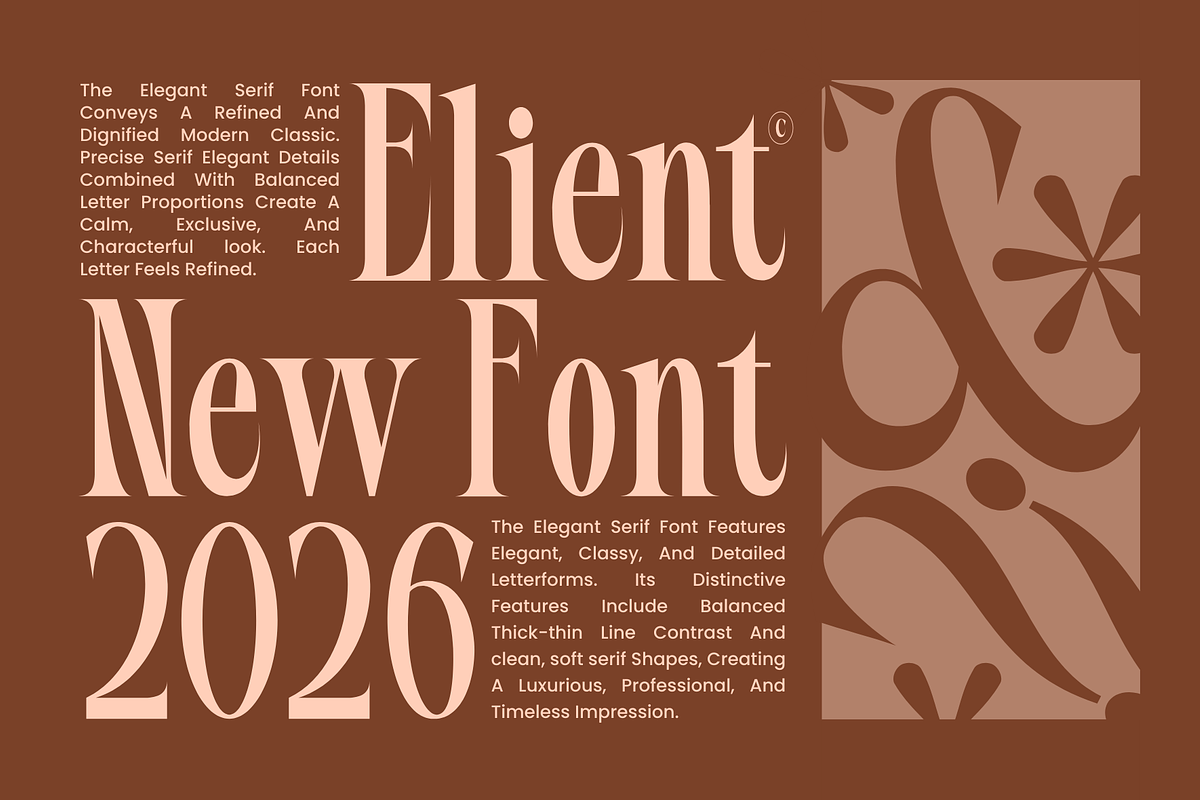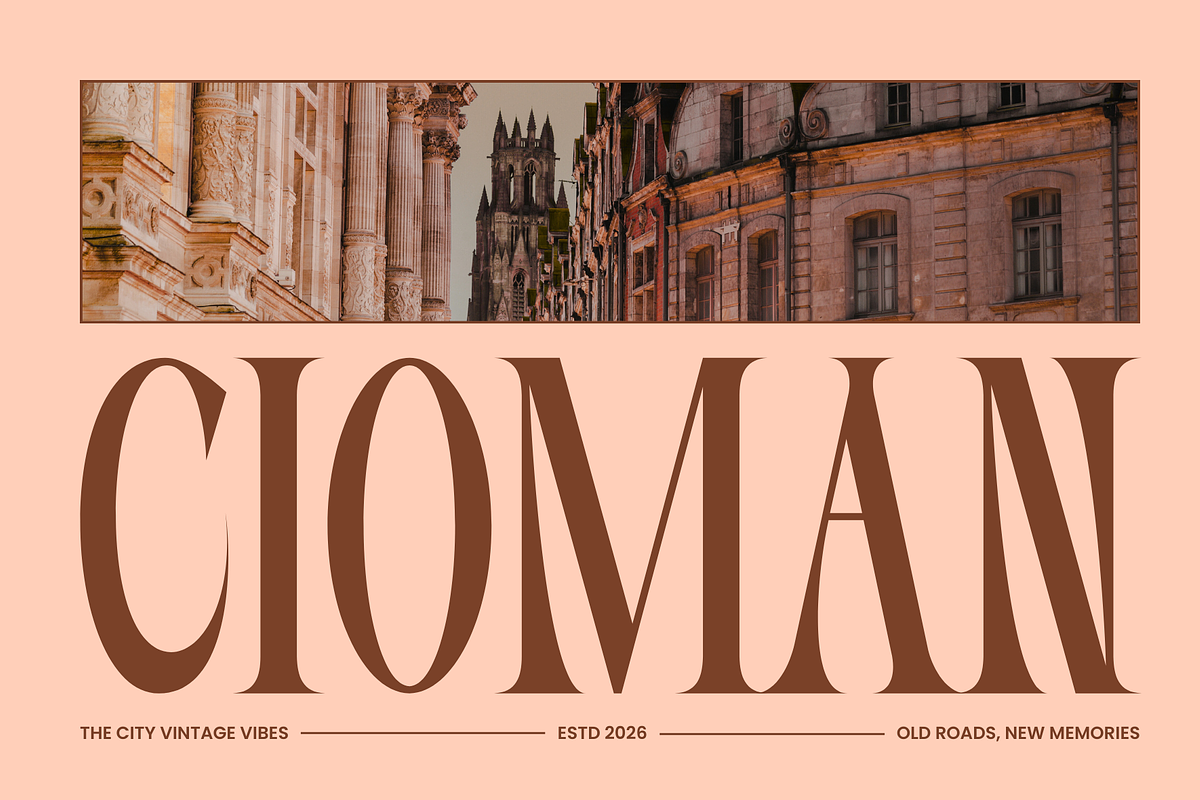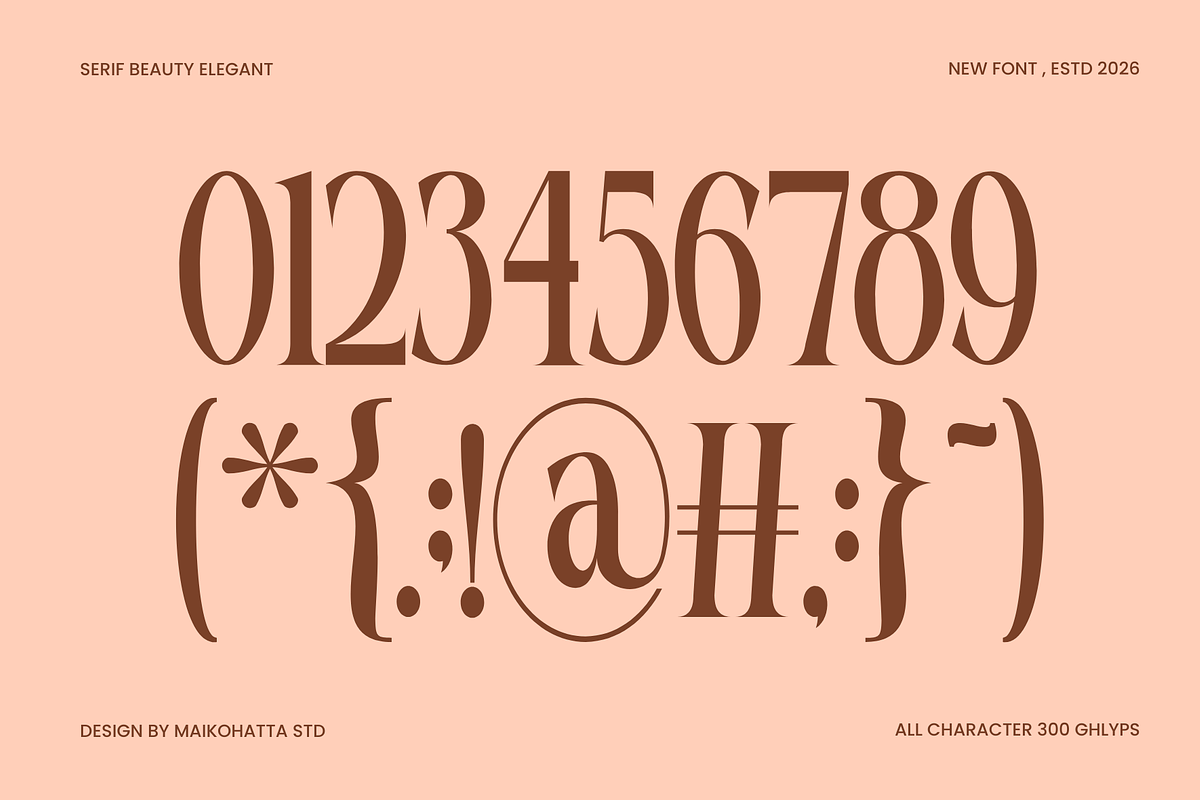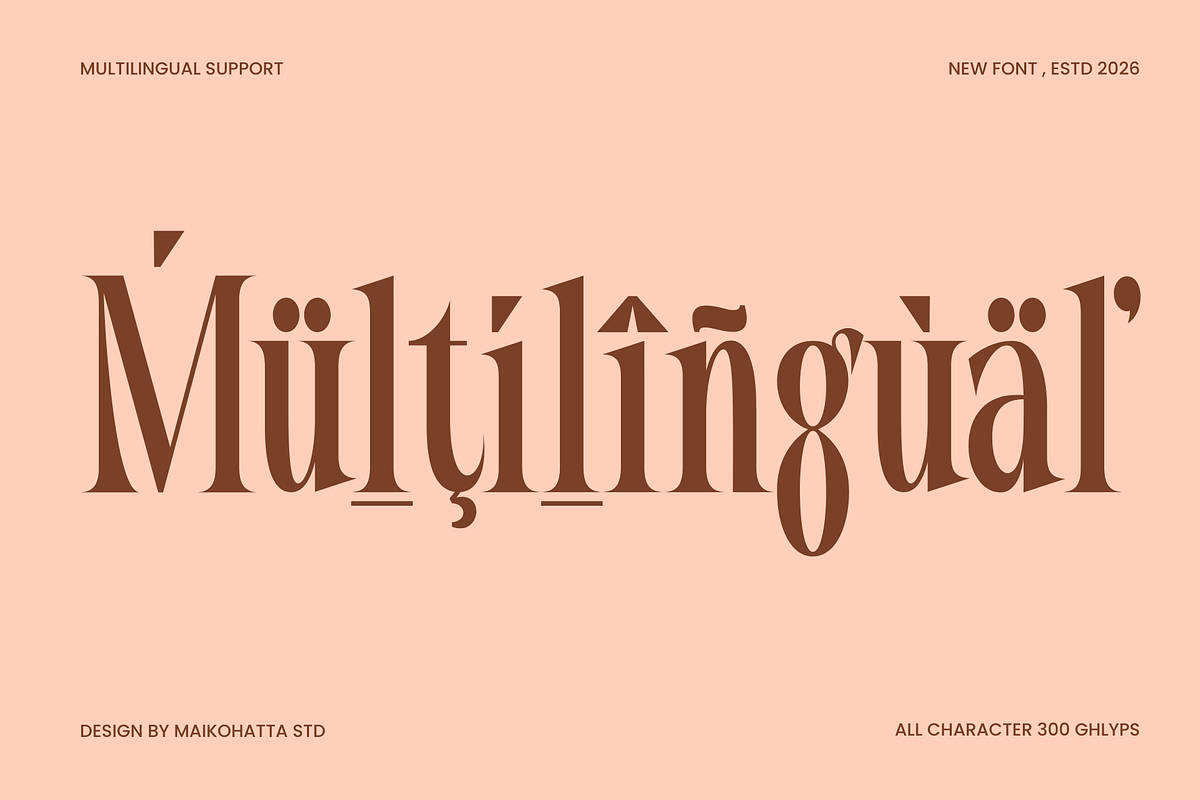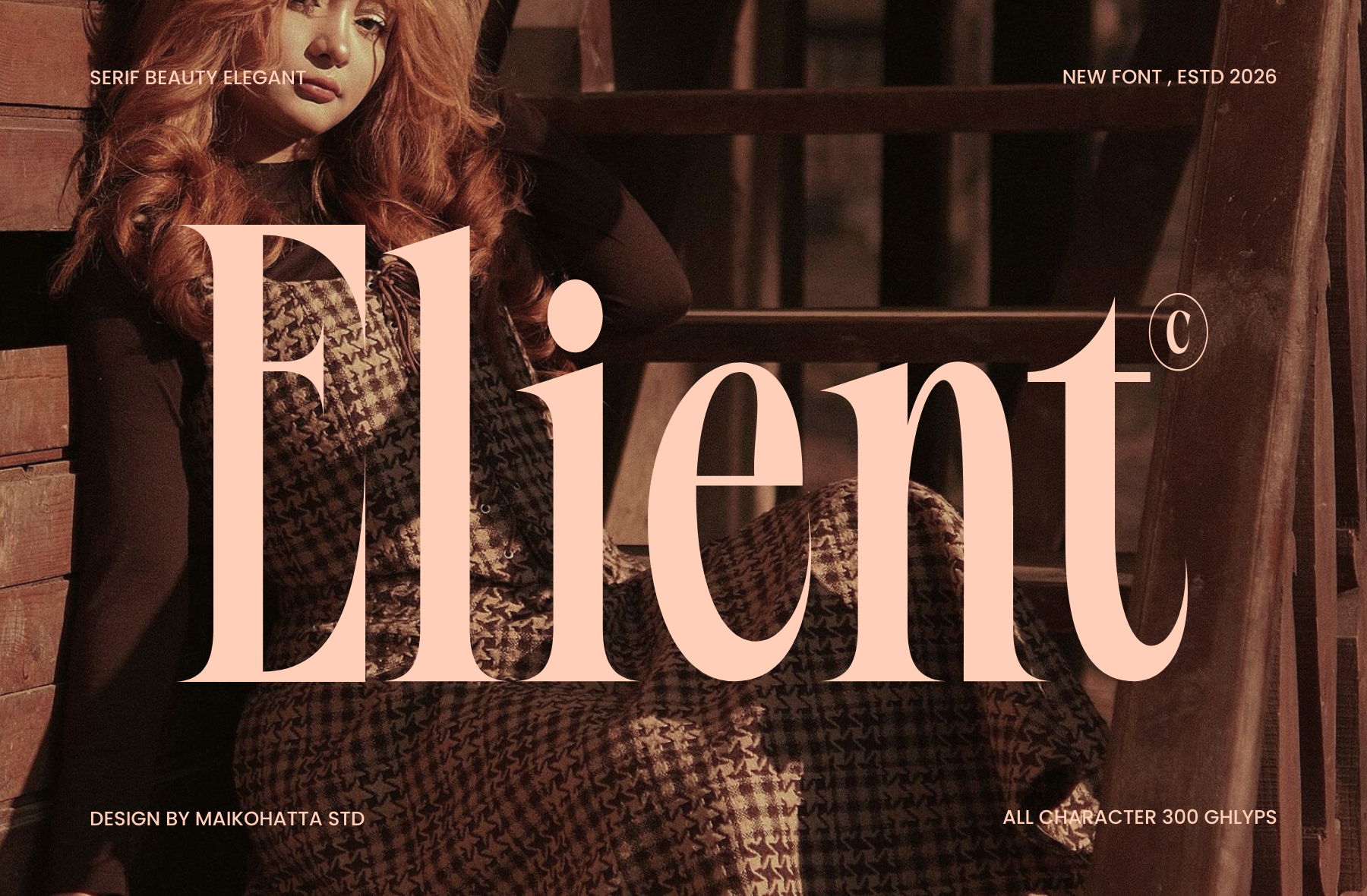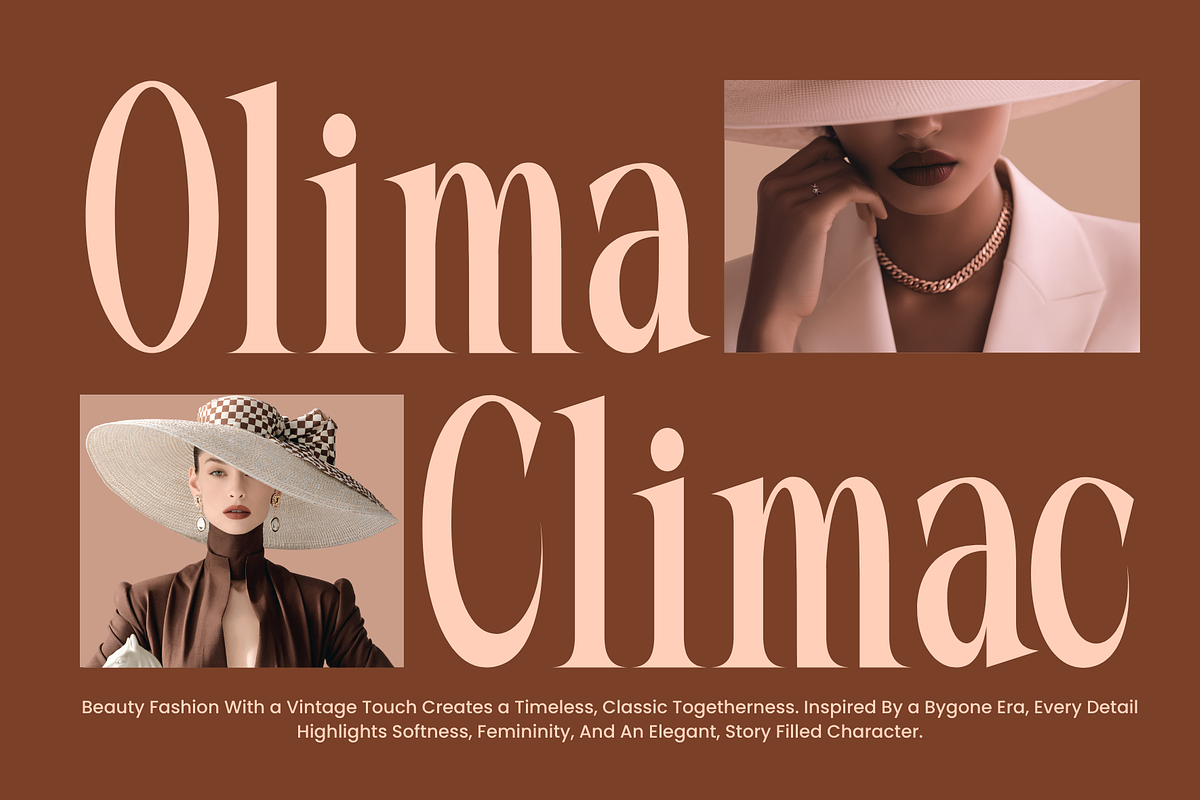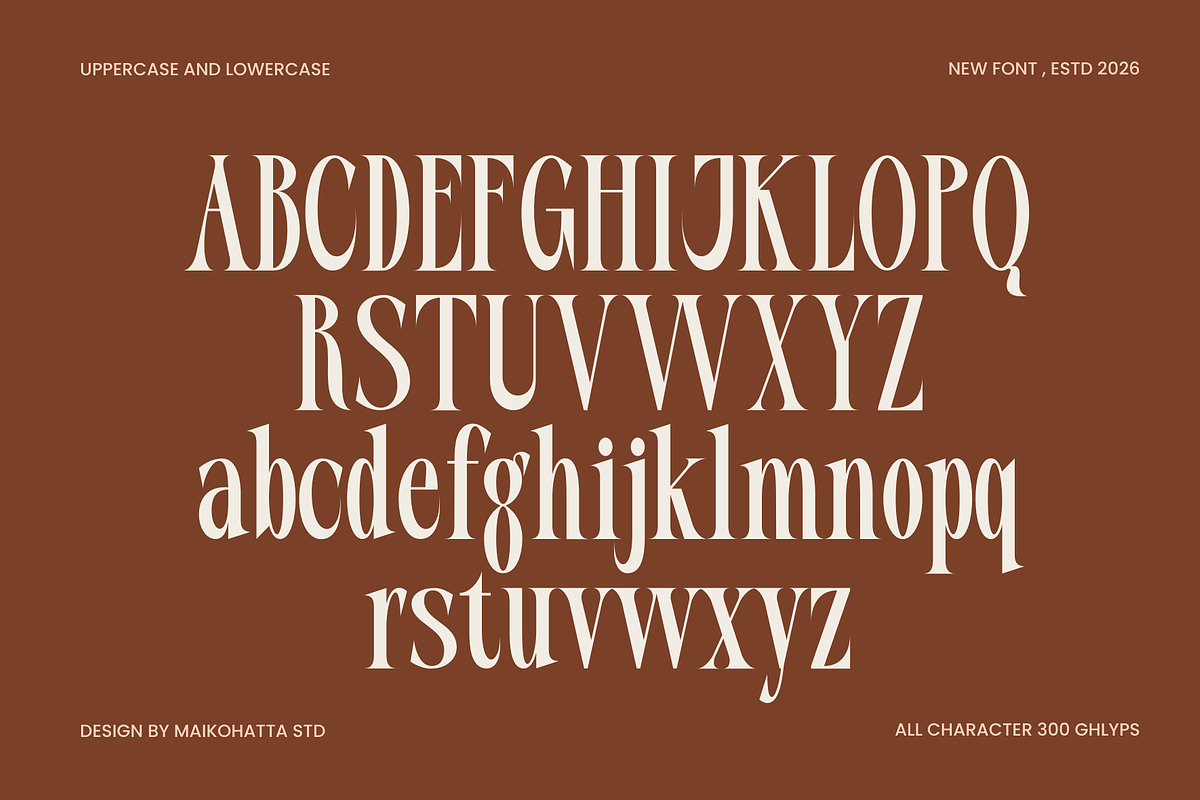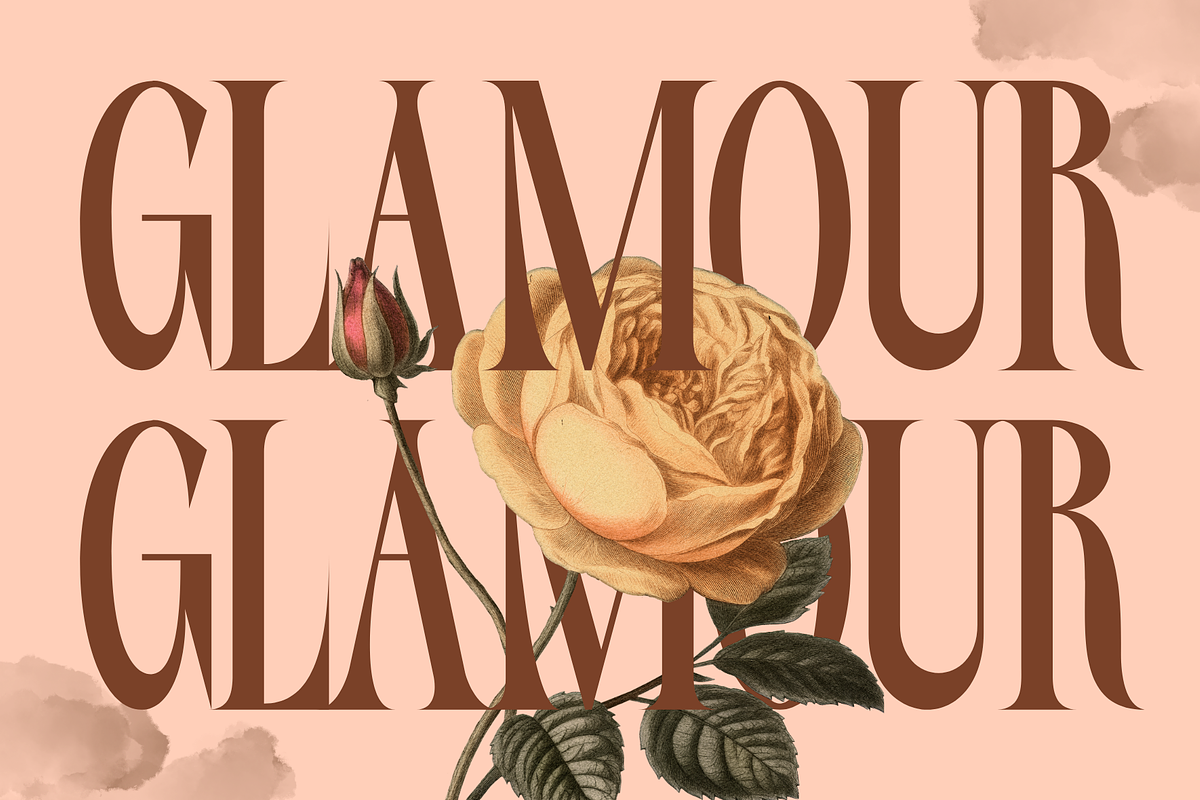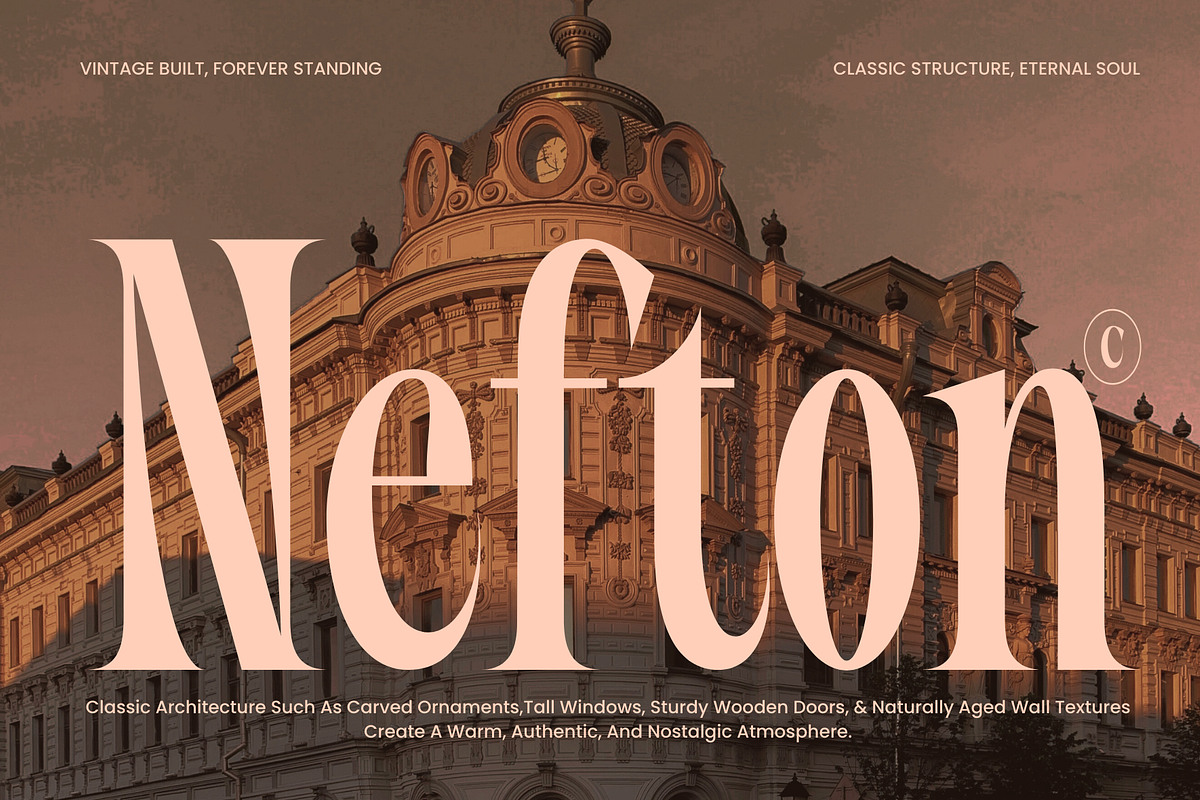
Elient – Elegant Fashion Serif Font
Introducing our new product Elient – Elegant Fashion Serif Font
Elient is a modern elegant serif font designed to bring luxury, beauty, and sophistication to your creative projects. Inspired by high-fashion editorials and timeless classic typography, Elient features refined letterforms with smooth curves and stylish contrast, making it perfect for premium design needs.
This font is ideal for fashion branding, beauty products, magazine layouts, logos, wedding designs, and high-end promotional materials. Elient delivers a classy and confident visual style while remaining clean and readable across various design applications.
With a complete set of characters and multilingual support, Elient offers flexibility for both digital and print projects. Whether you are creating a bold headline or an elegant logo, Elient adds a touch of exclusivity and modern luxury to your design.